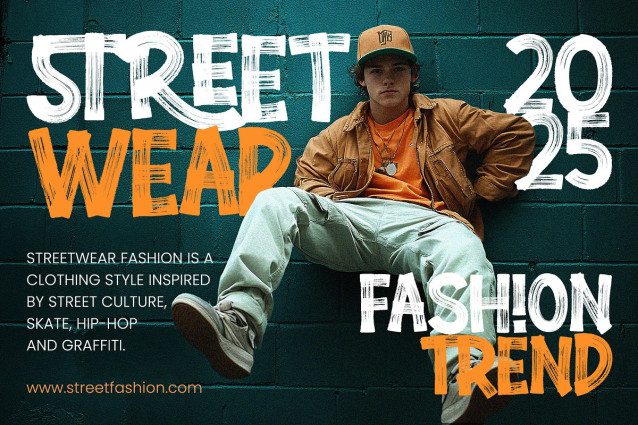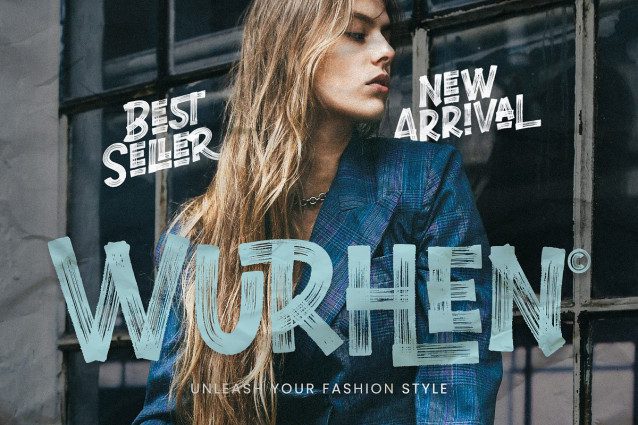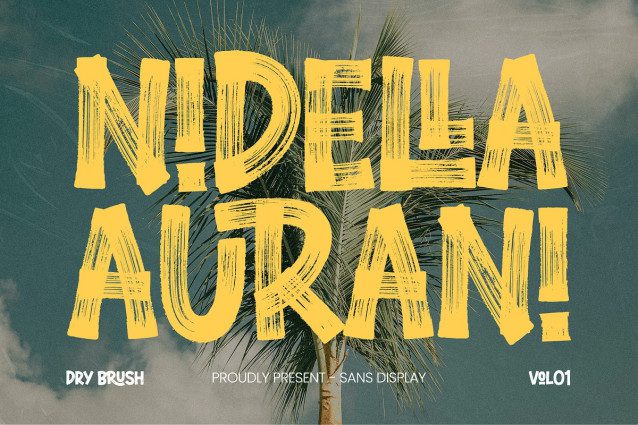
Nidella Aurani Font
Nidella Aurani Font offers bold, dynamic handcrafted style, ideal for modern, eye-catching designs that stand out and inspire creativity with a unique flair.Uppercase & Lowercase Characters: Fully designed for a complete typographic experience
Numerals & Punctuation: All the numbers and punctuation marks you need for any design task
High-Quality Design: Each font is crafted with attention to detail, ensuring a polished and professional look
Editable and Scalable: Vector-based fonts that can be resized without losing quality